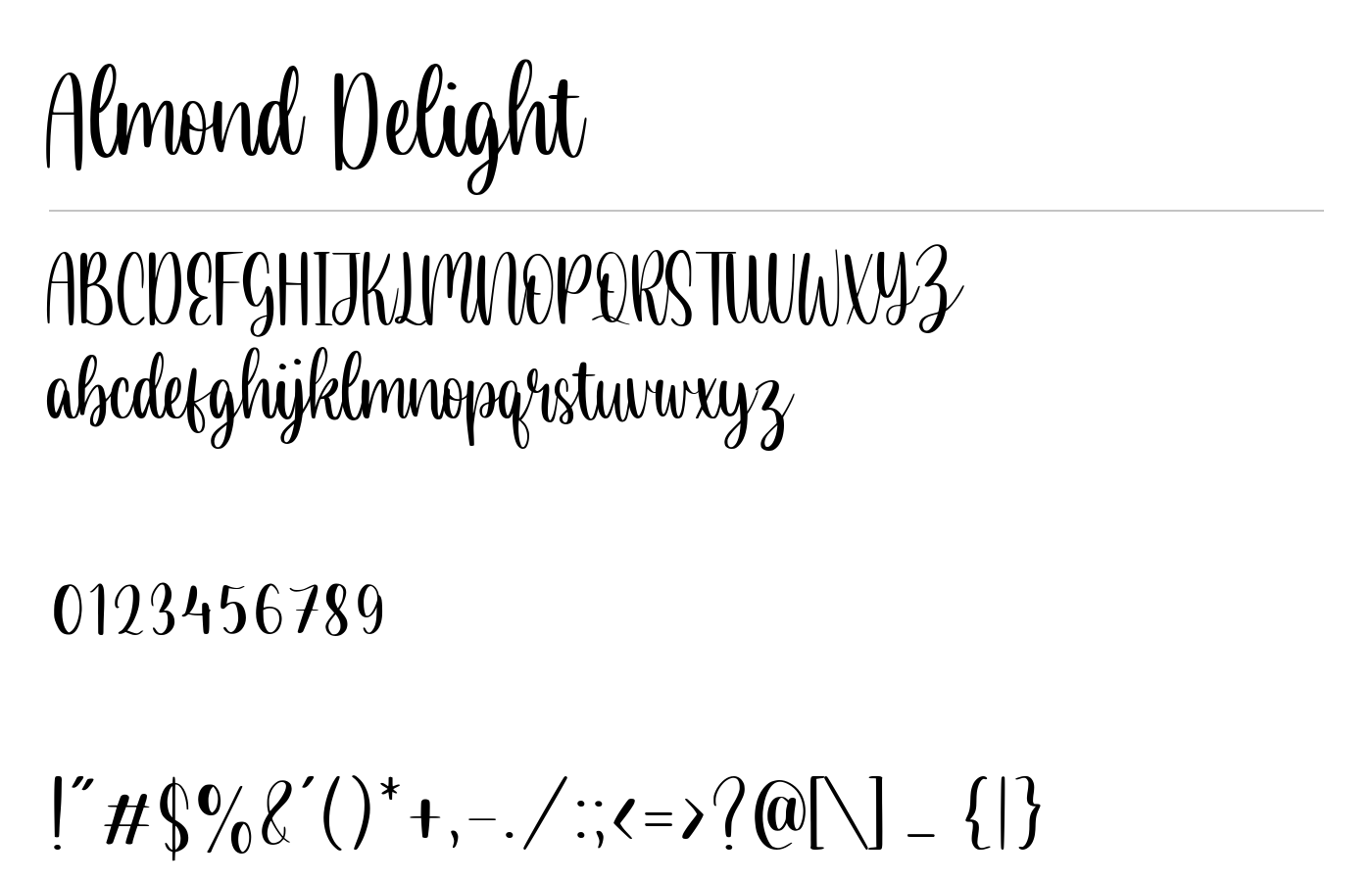
Almond Delight is a graceful, narrow script font with a hand-drawn feel that combines elegance and warmth. Its tall, slender letterforms and gentle stroke contrasts create a stylish yet approachable look, perfect for branding, invitations, and any design needing a personal, sophisticated touch. This font works beautifully for headlines, logos, and packaging where a chic, modern handwritten vibe is desired.
Almond Delight Font
About Almond Delight Font